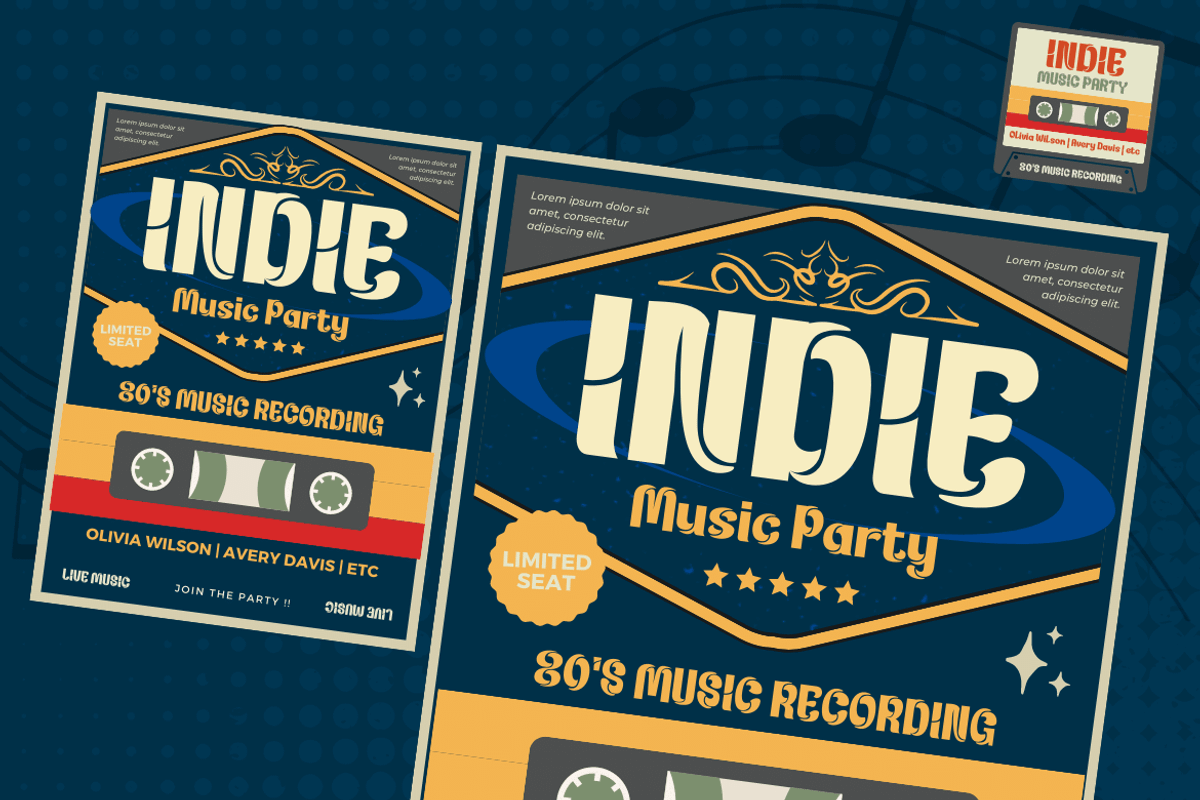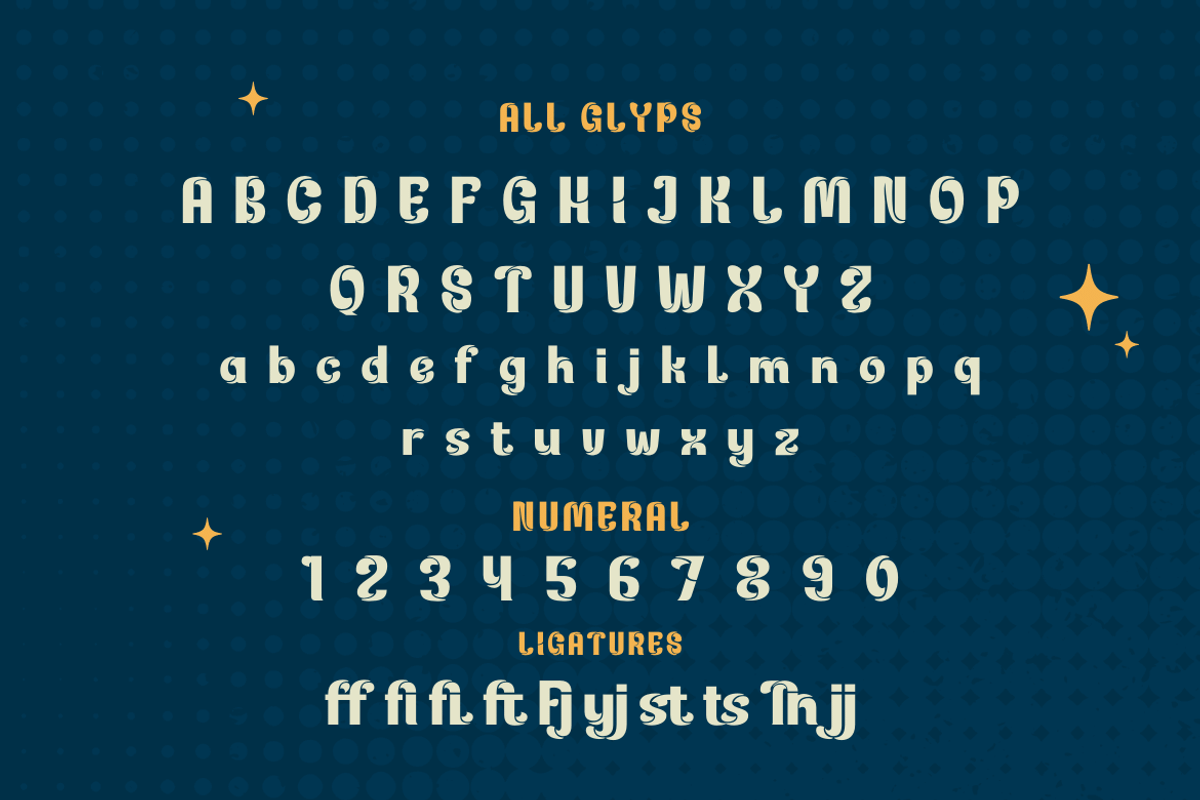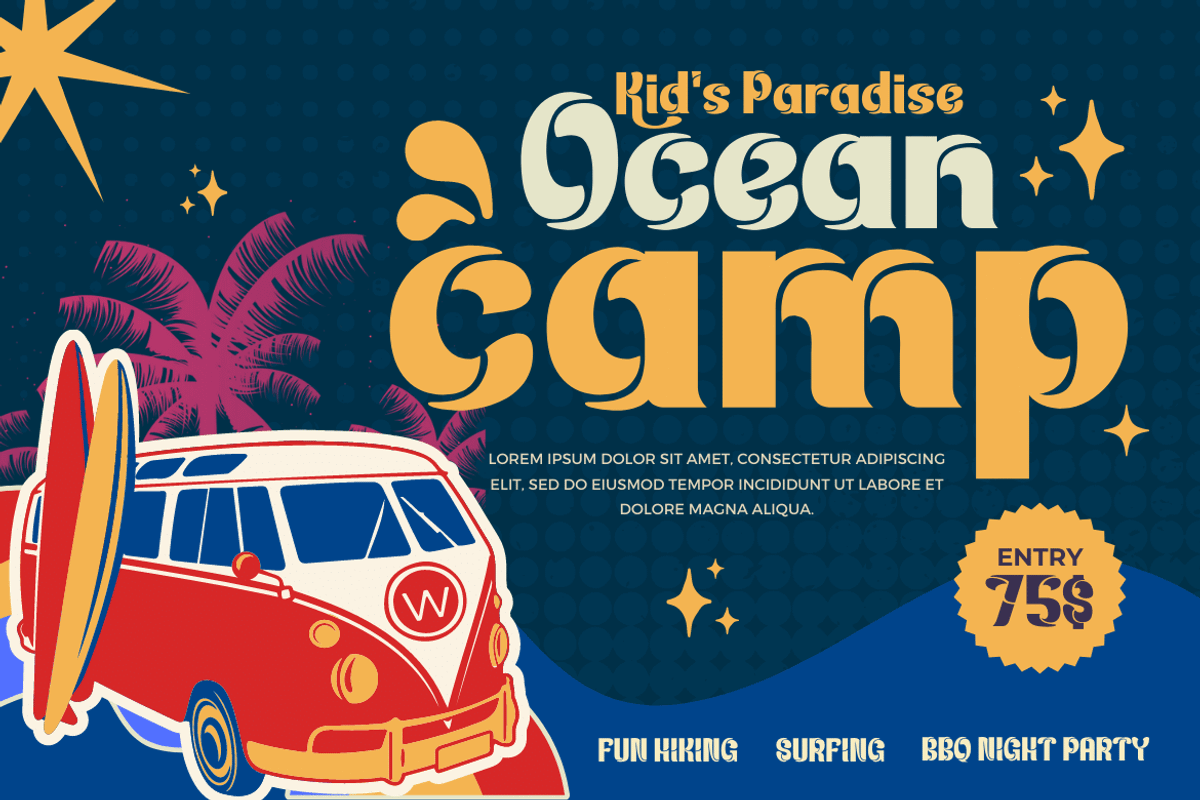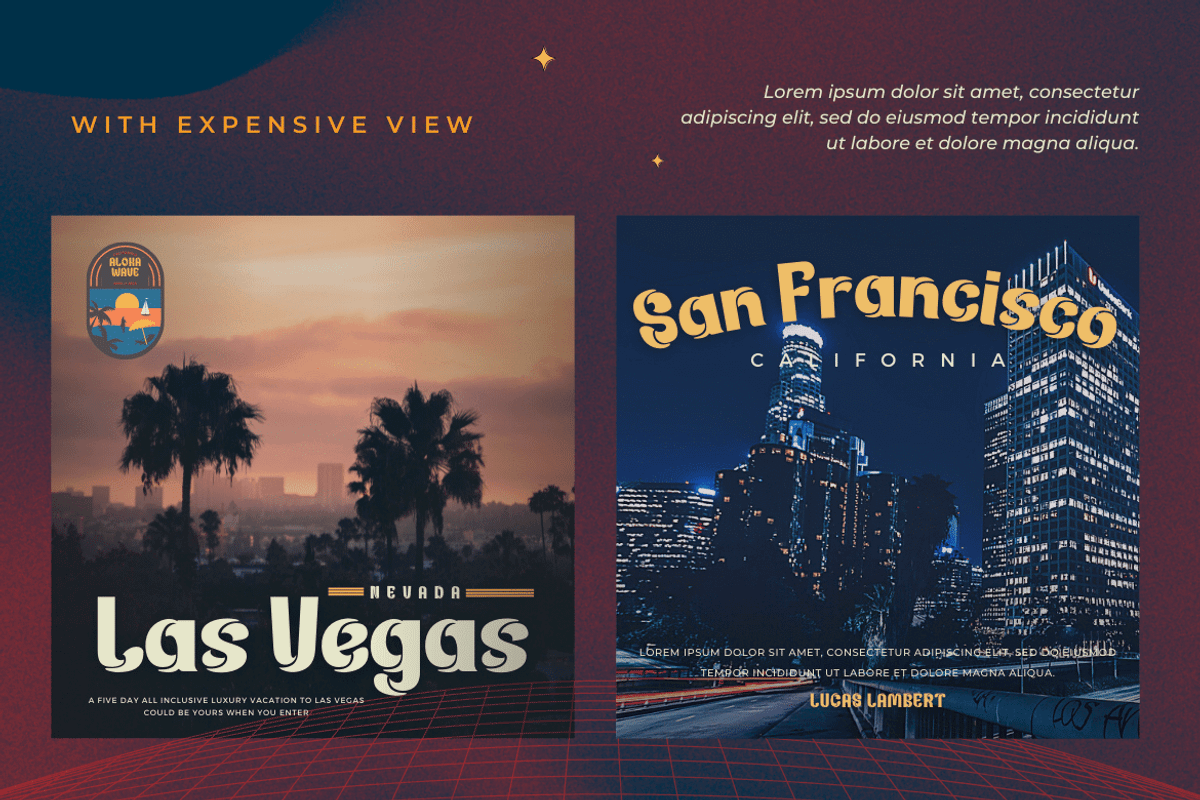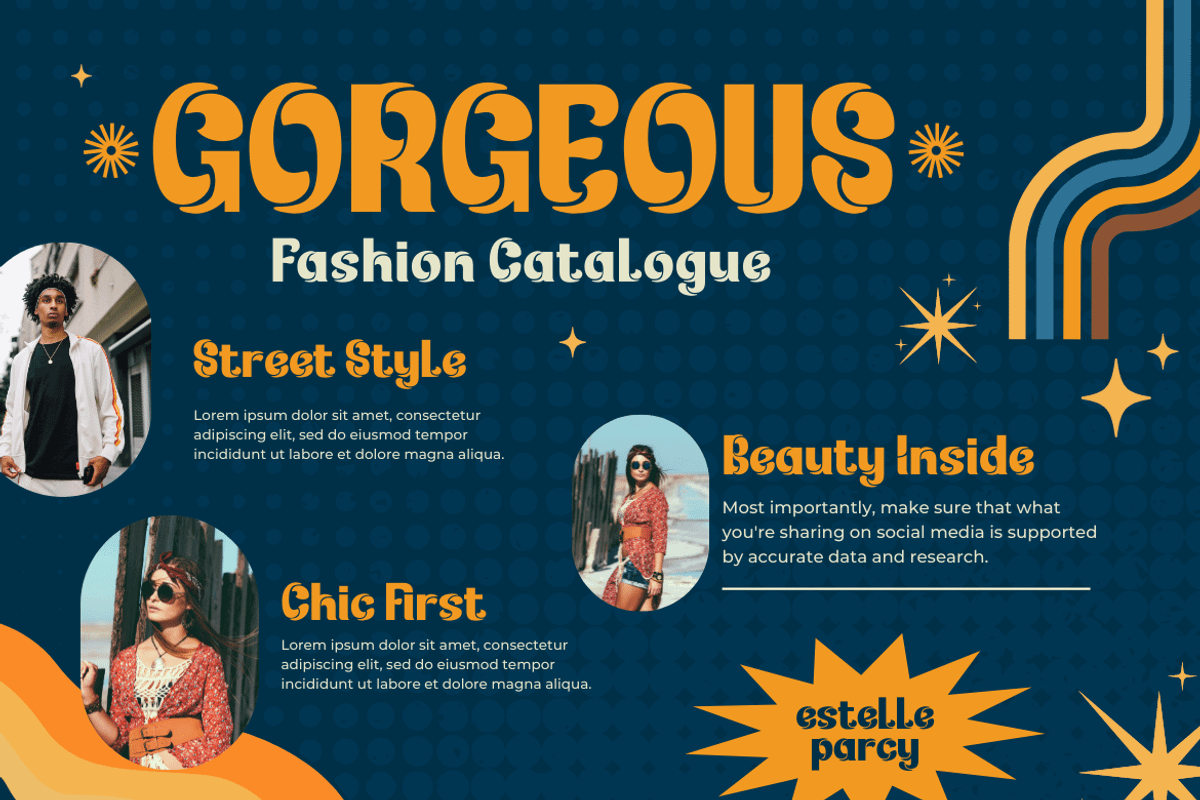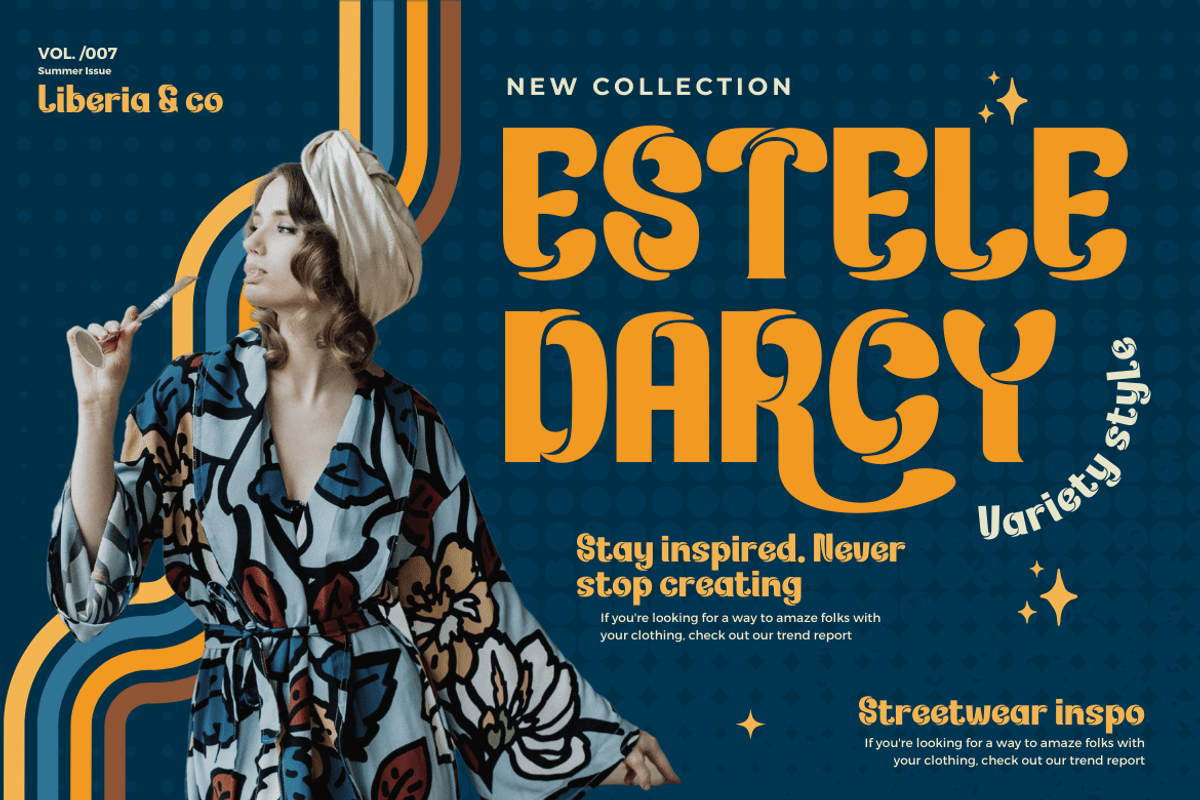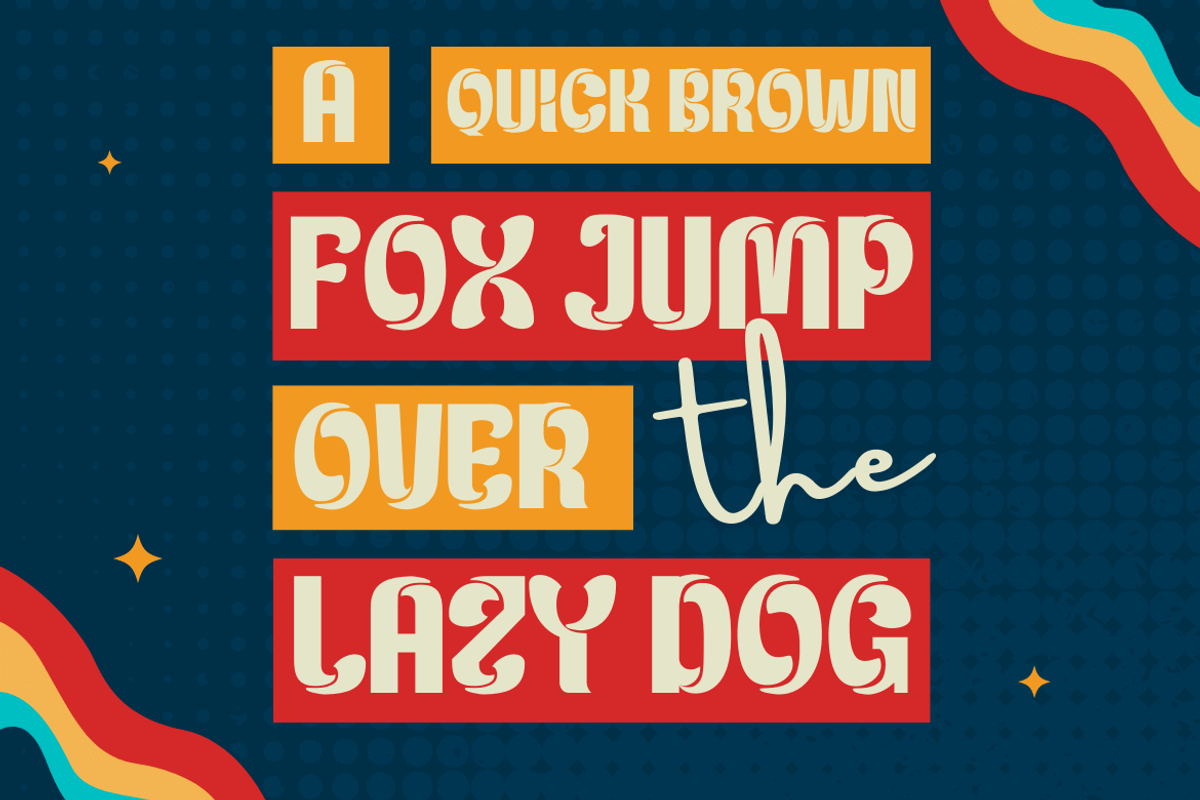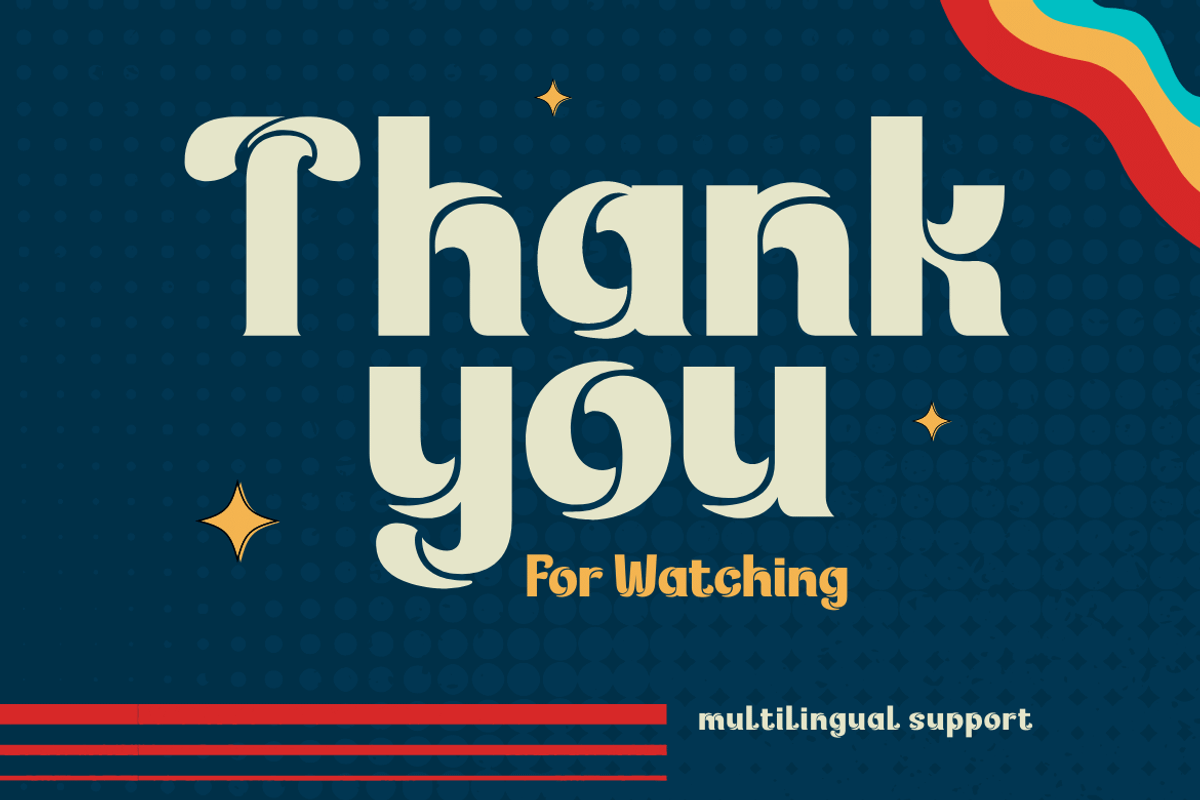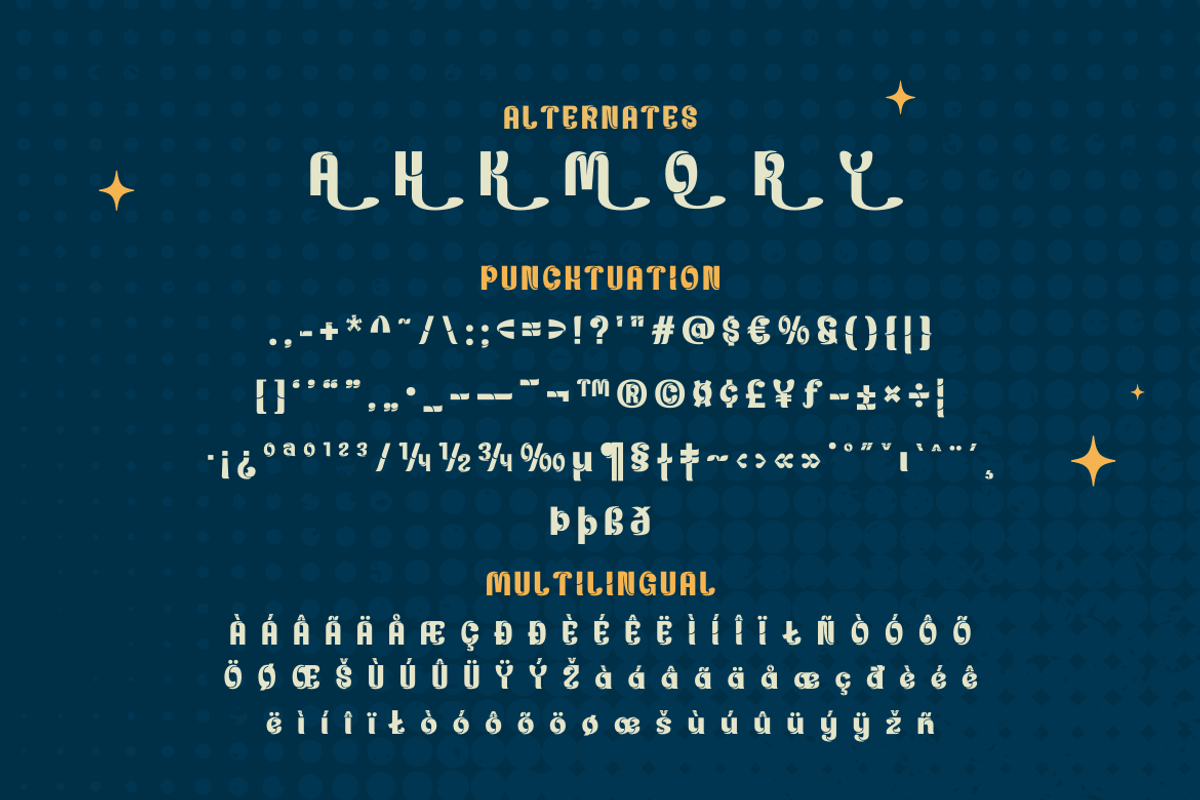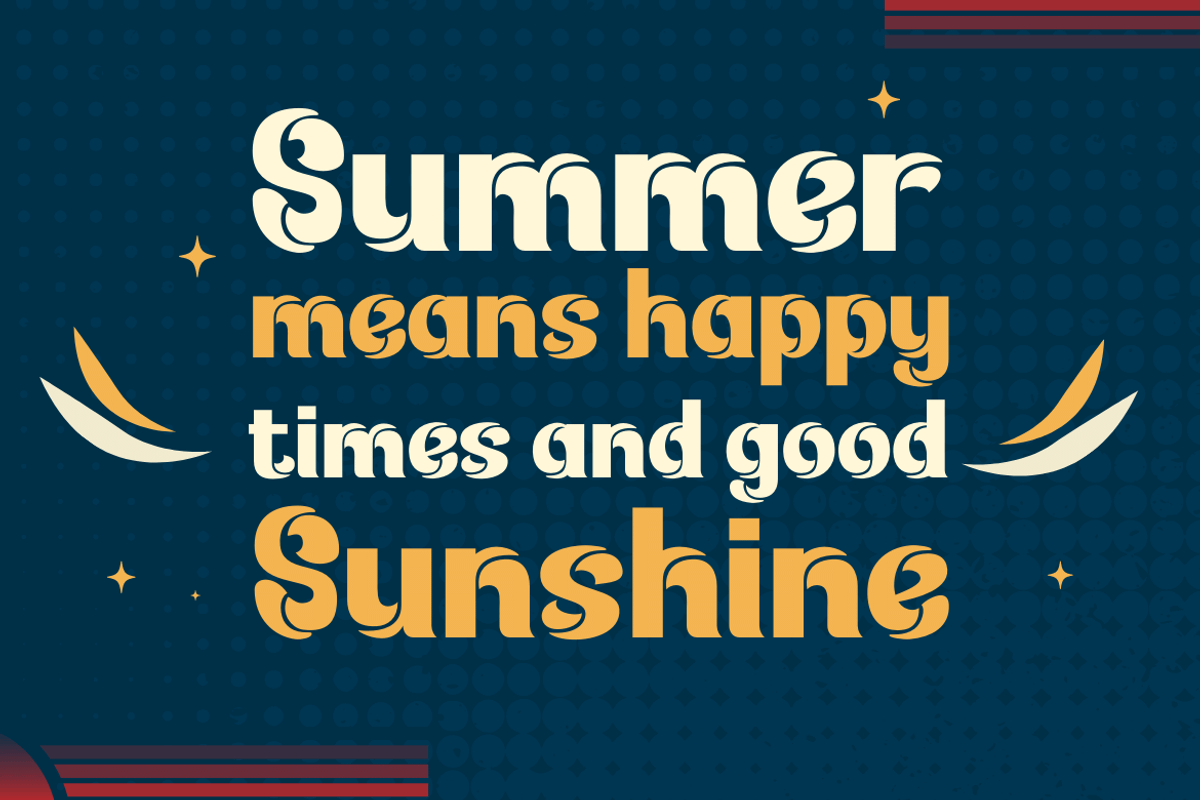
Kejaxi | Groovy Retro Font
Kejaxi font groovy is a psychedelic-inspired typeface. It has a fun and bold shape, perfect for all your creative projects that need a retro style. This Groovy font is a free display font with bold and geometric shapes, perfect for branding and editorial design. This font is also ideal for product packaging or even just to add a little flair to your design work. Kejaxi is a contemporary font with geometric shapes and accuracy that will add a touch of elegance to any design. So stop procrastinating and incorporate it into your designs right away!